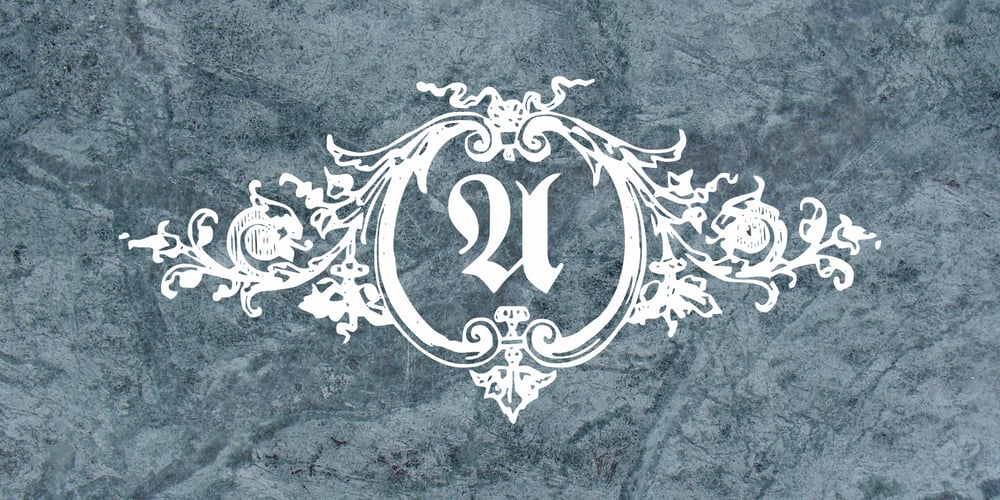
Hostetler Fette Ultfraktur Ornamental Font Family was designed by Paulo W and published by Intellecta Design. Hostetler Fette Ultfraktur Ornamental contains 3 styles and family package options. I digitized and revitalize Hostetler Fette Ultfraktur Ornamental from the classical type specimen book from Rudolf Hostetler. He was a Swiss type designer, author of “The Printer’s Terms” designed by Jan Tschichold, of “Technical Terms of the Printing Industry” (5th edition was printed in 1995), and of “Type: eine Auswahl guter Drucktypen; 80 Alphabete klassischer und moderner Schriften” (Teufen, Ausser-Rhoden: Niggli, 1958). He also wrote “Type: A Selection of Types” (1949, fgm books, R. Hostettler, E. Kopley, H. Strehler Publ., St. Gallen and London) in which he highlights type made by European houses such as Haas, Enschedé, Deberny and Nebiolo. Jost Hochuli wrote his biography.